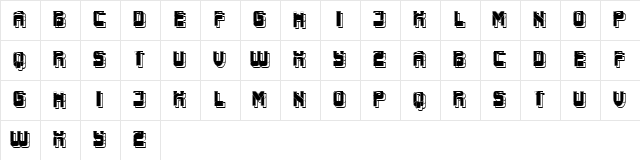
Triton Filled Regular
| Designer | Vladimiir Nikolic |
Design Context for Triton Filled Typeface
Triton Filled is a composed and adaptable typeface that performs quietly and consistently across a wide range of design contexts.